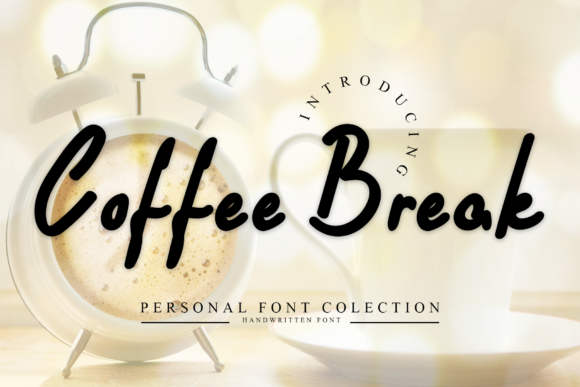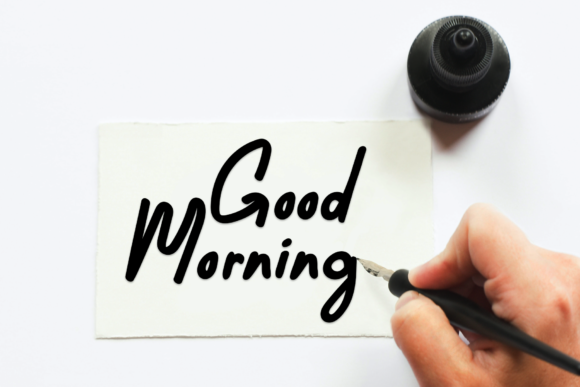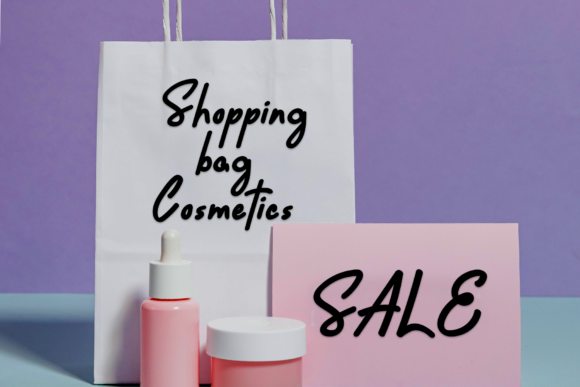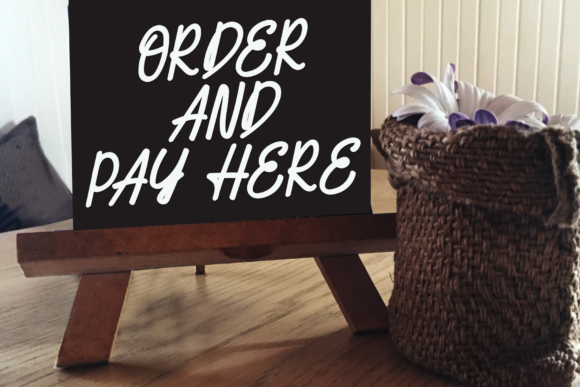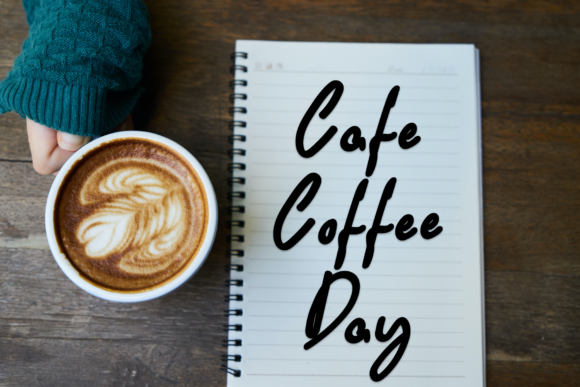
Coffee Break Font
About Coffee Break Font
Coffee Break is a sweet and simple handwritten font. It looks beautiful on a variety of designs requiring a personalized style, such as wedding invitations, thank you cards, weddings, greeting cards, logos and so on.